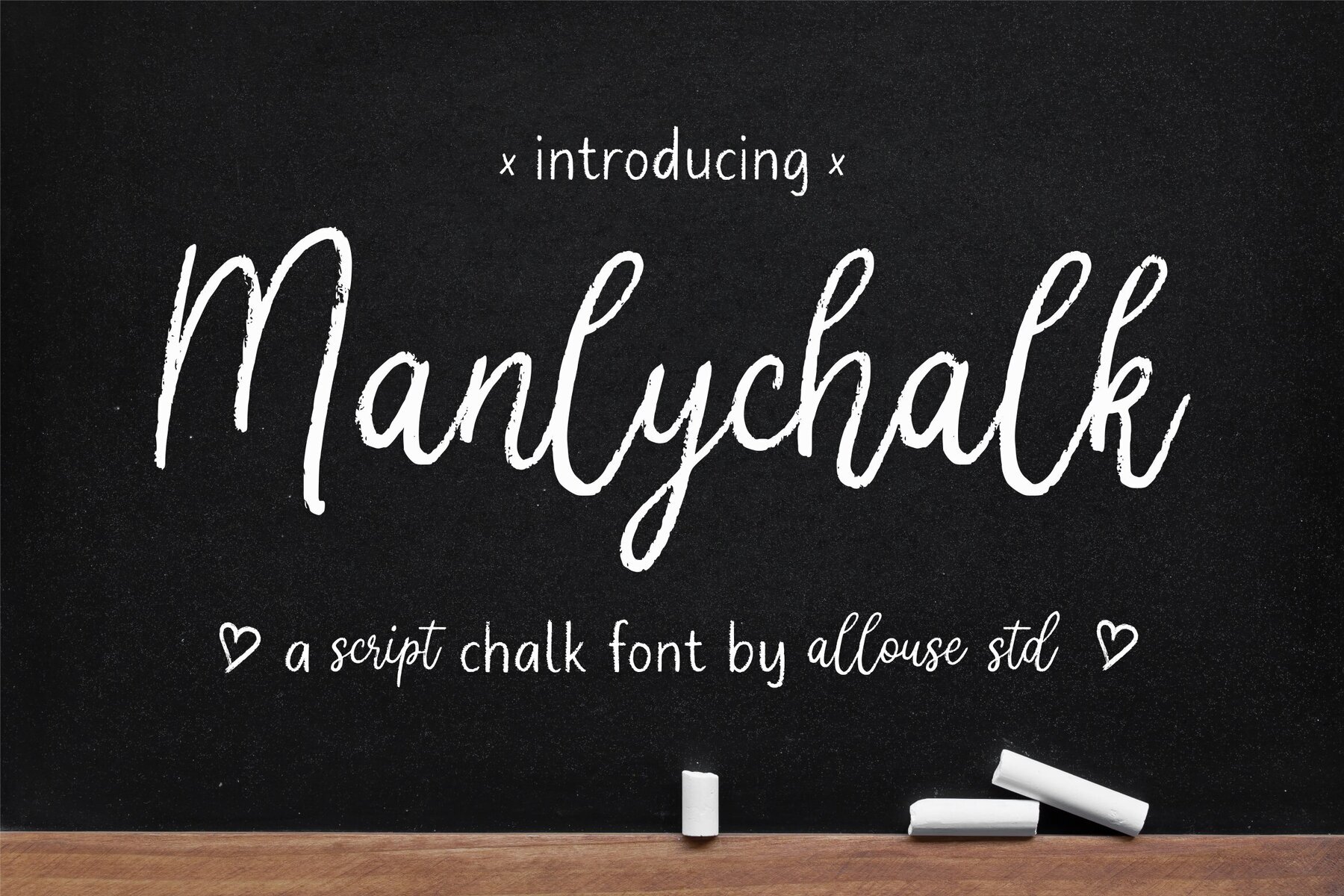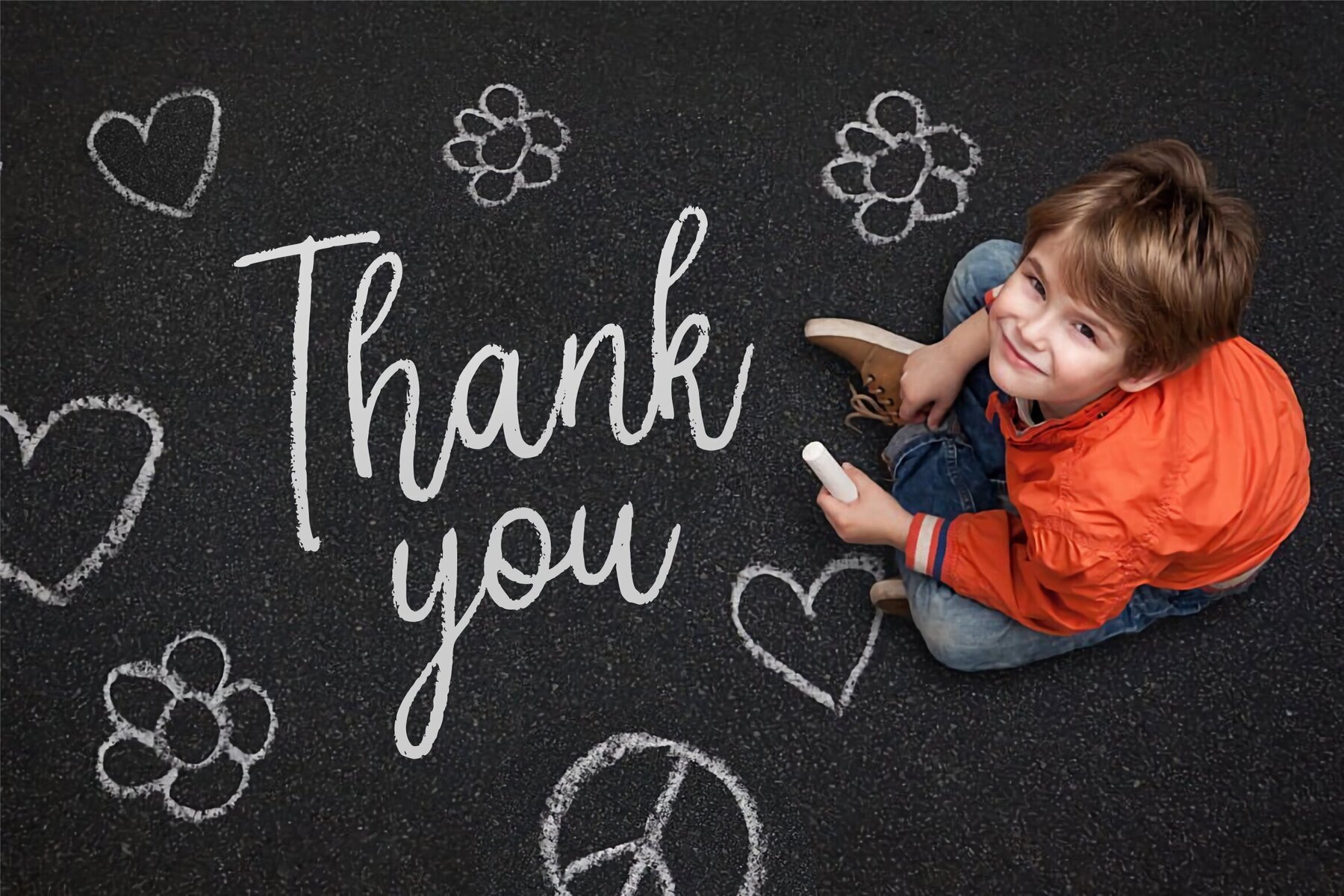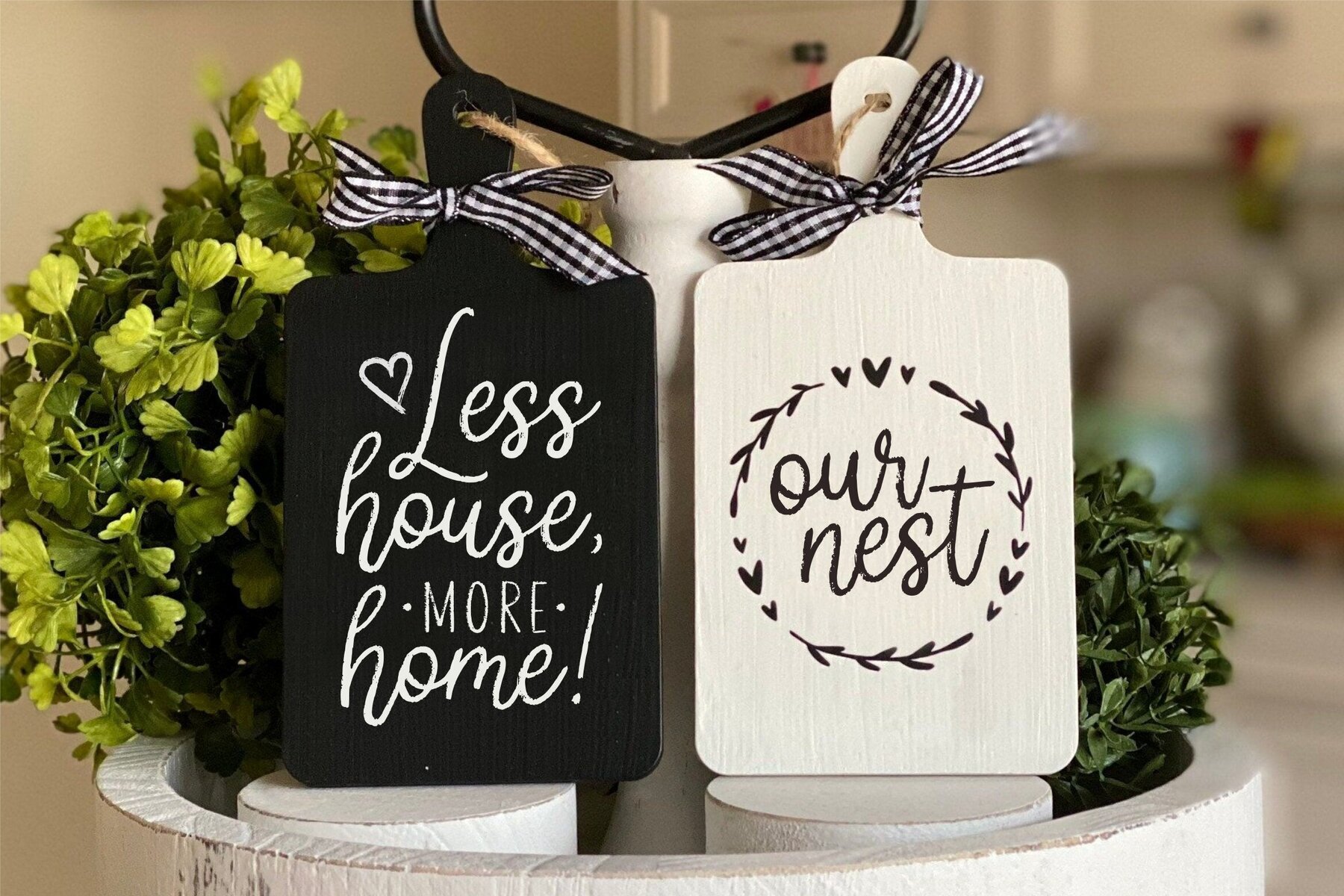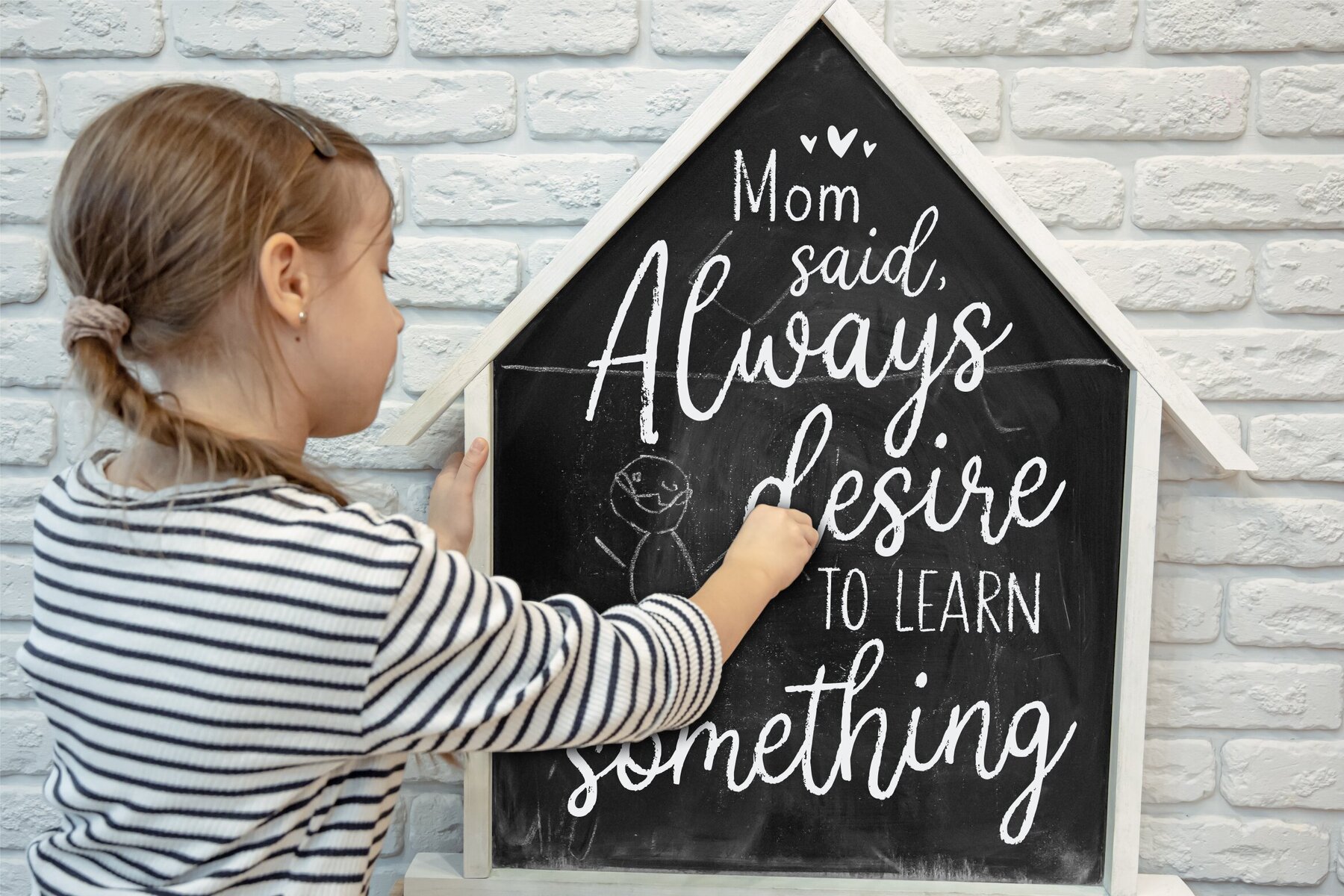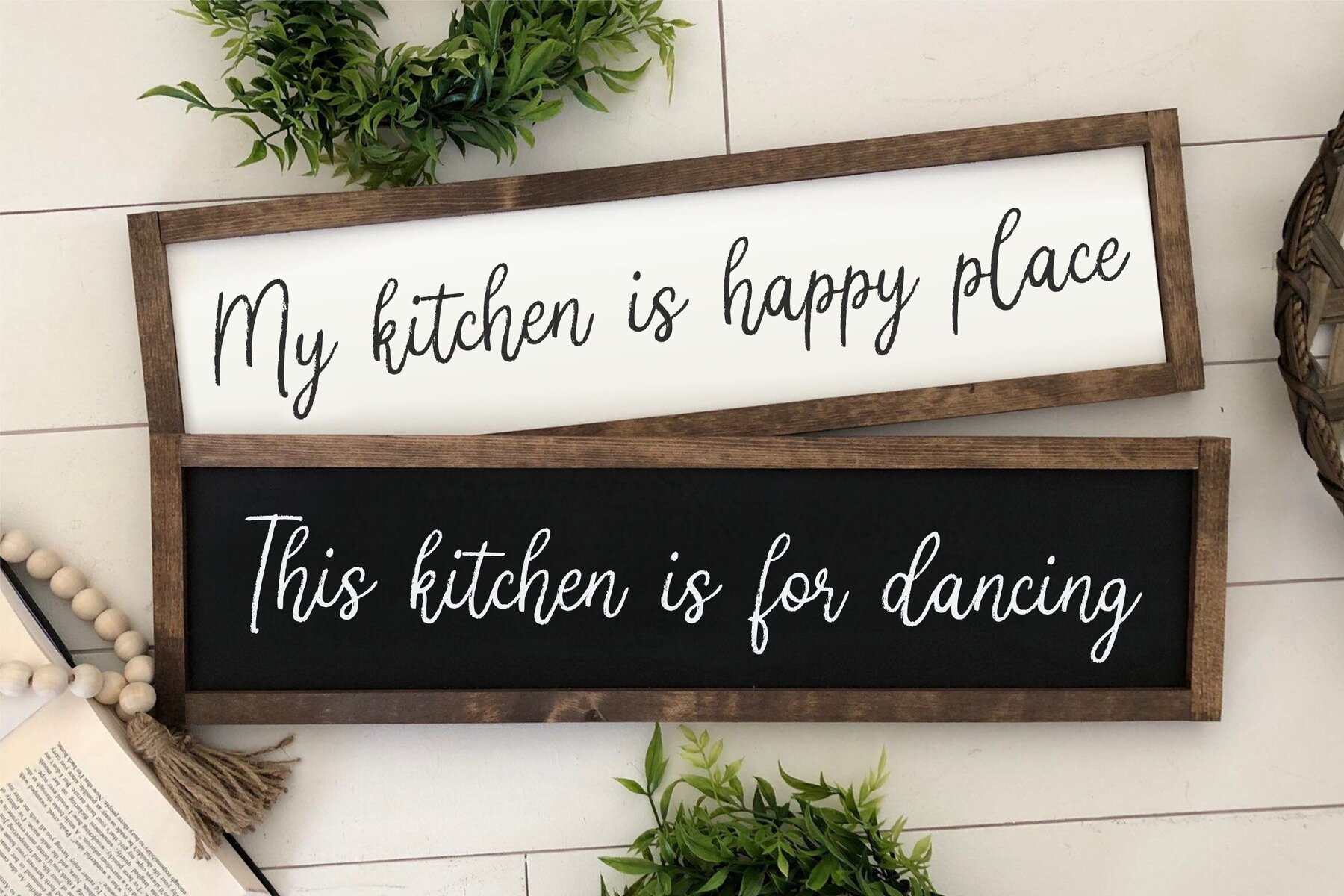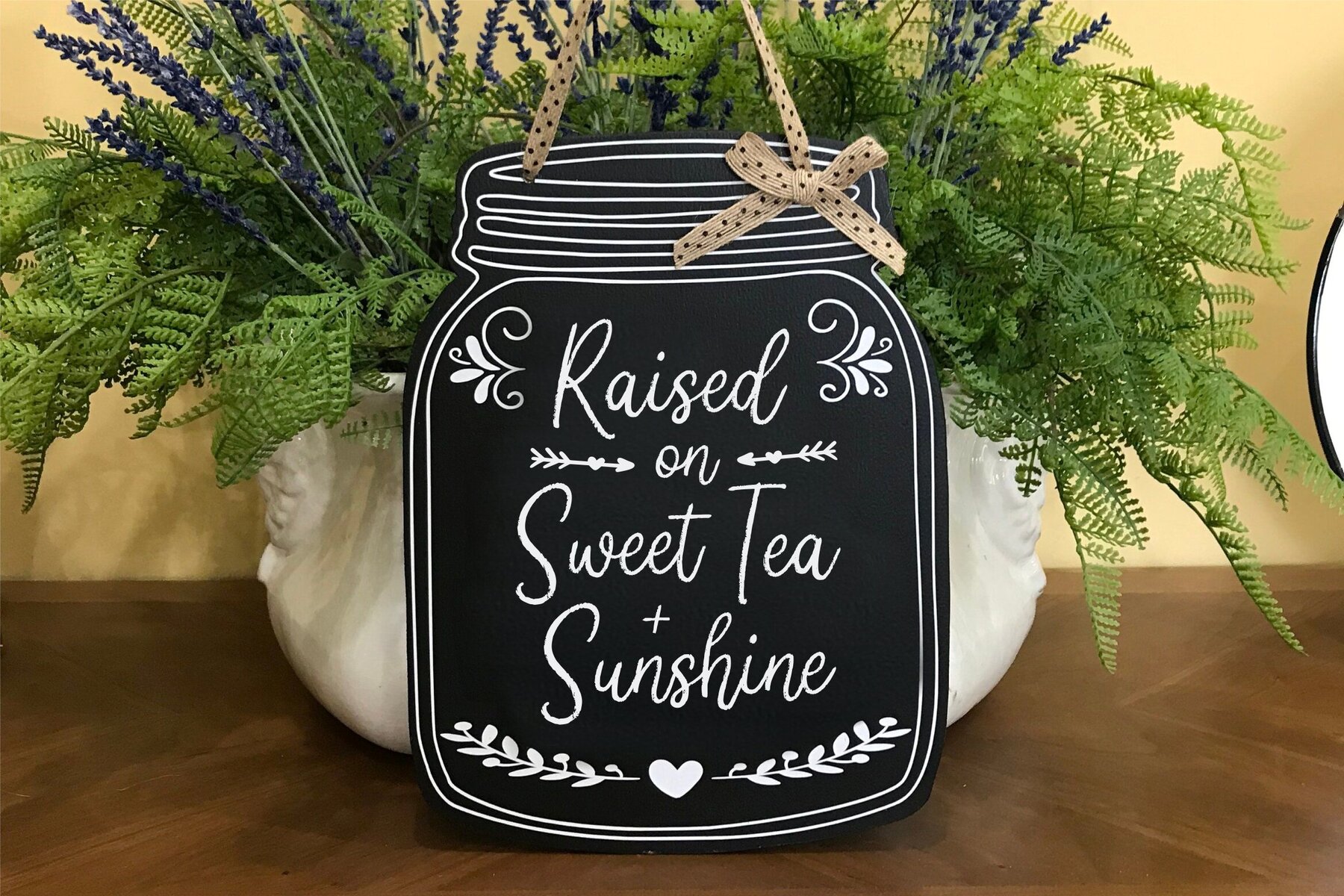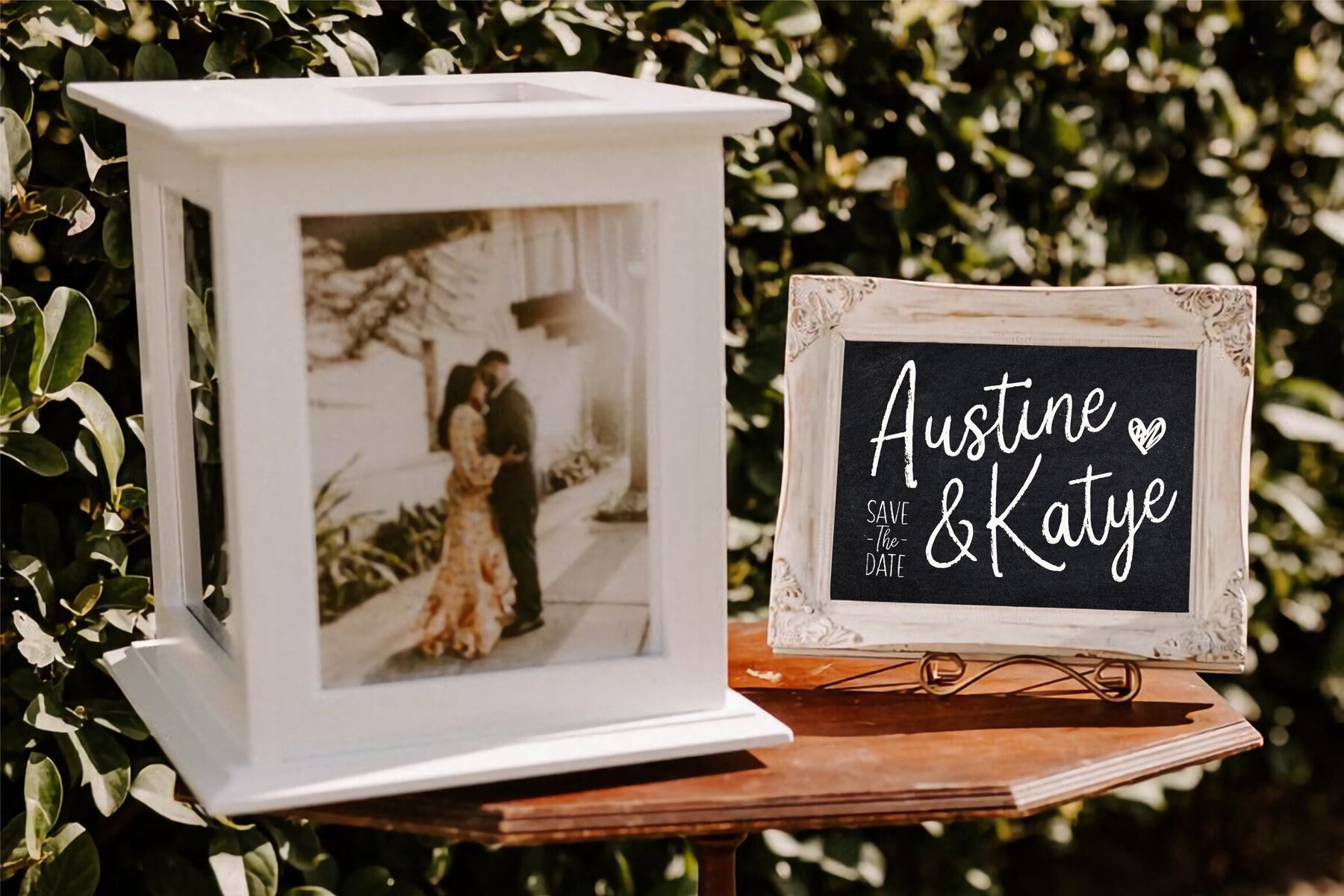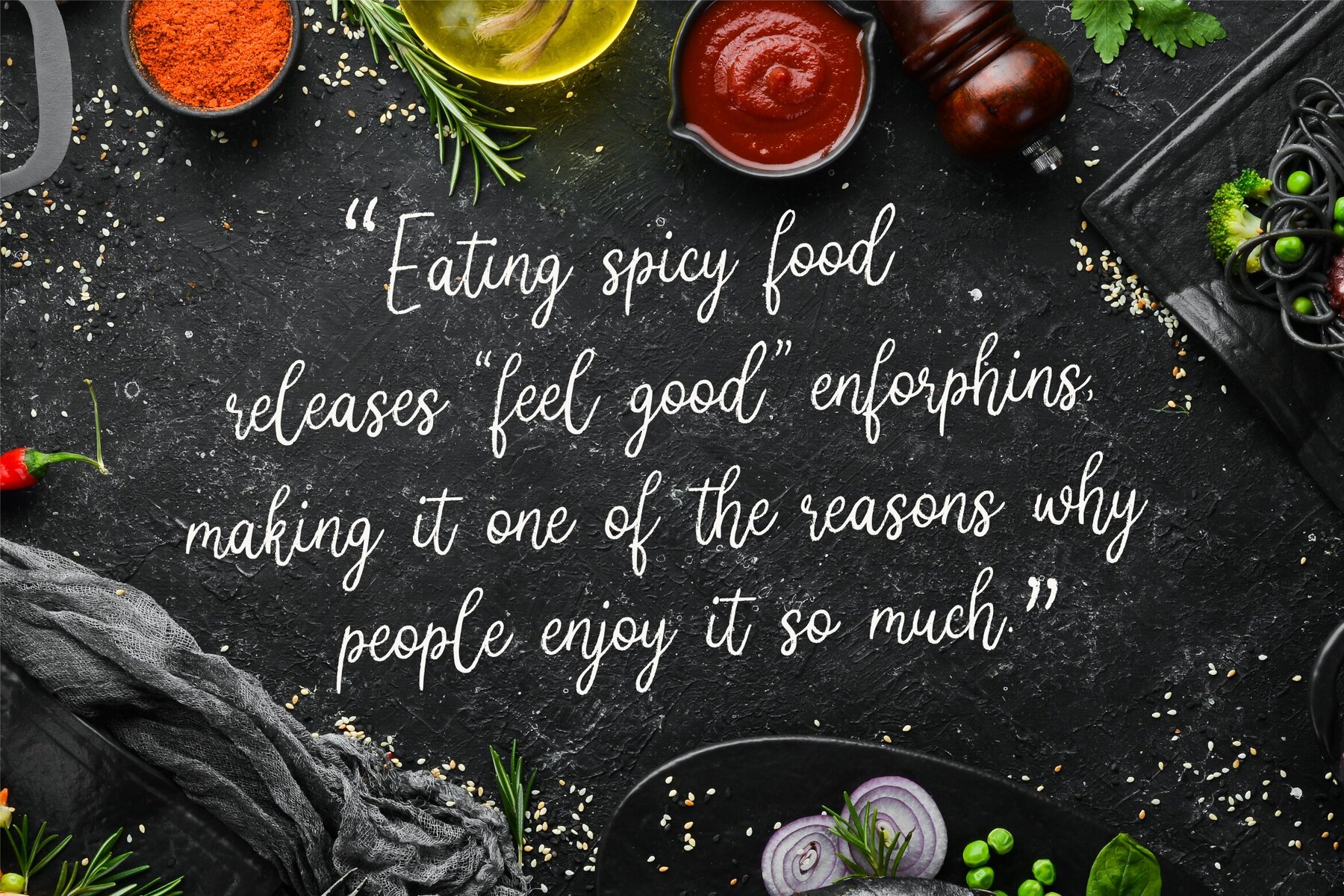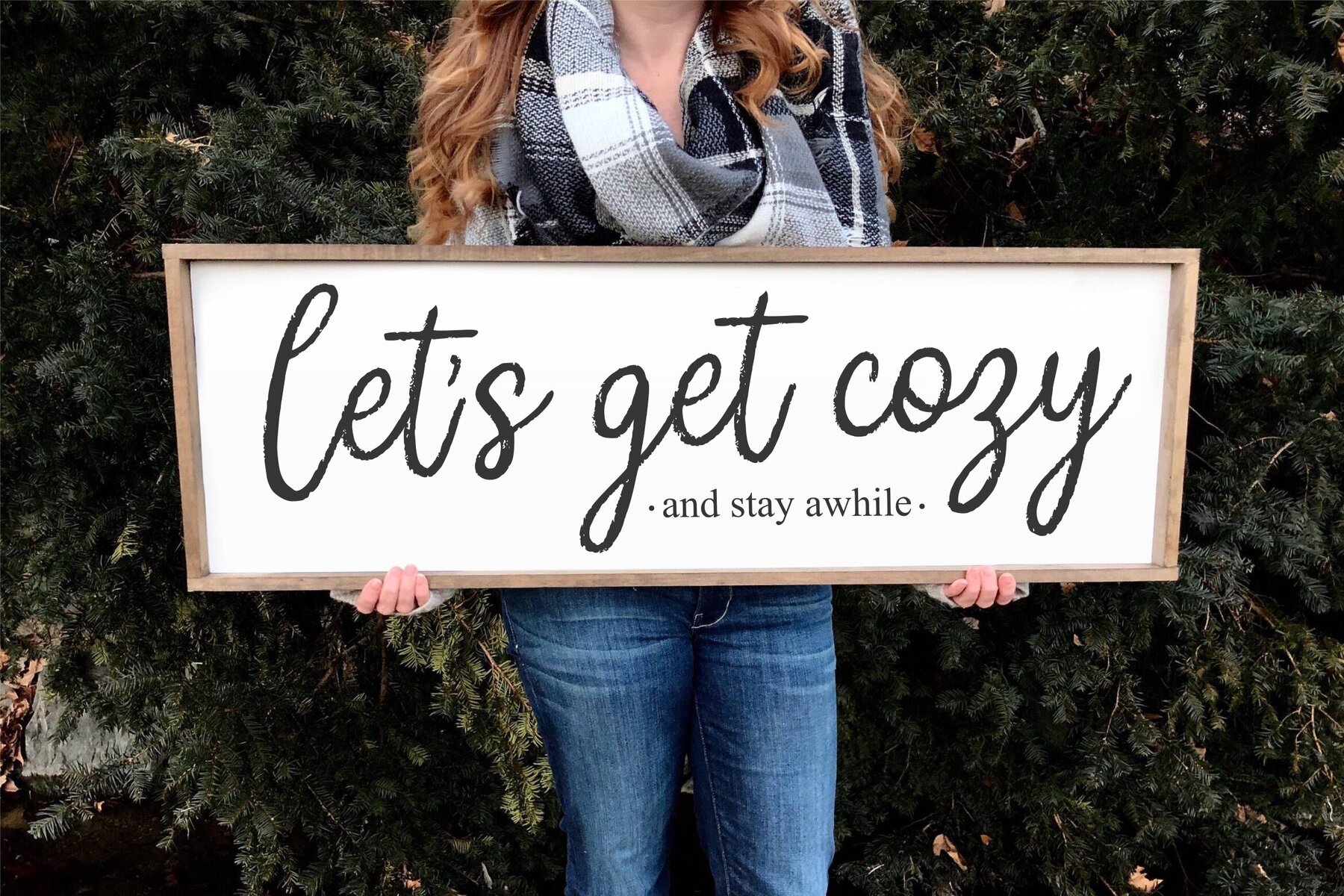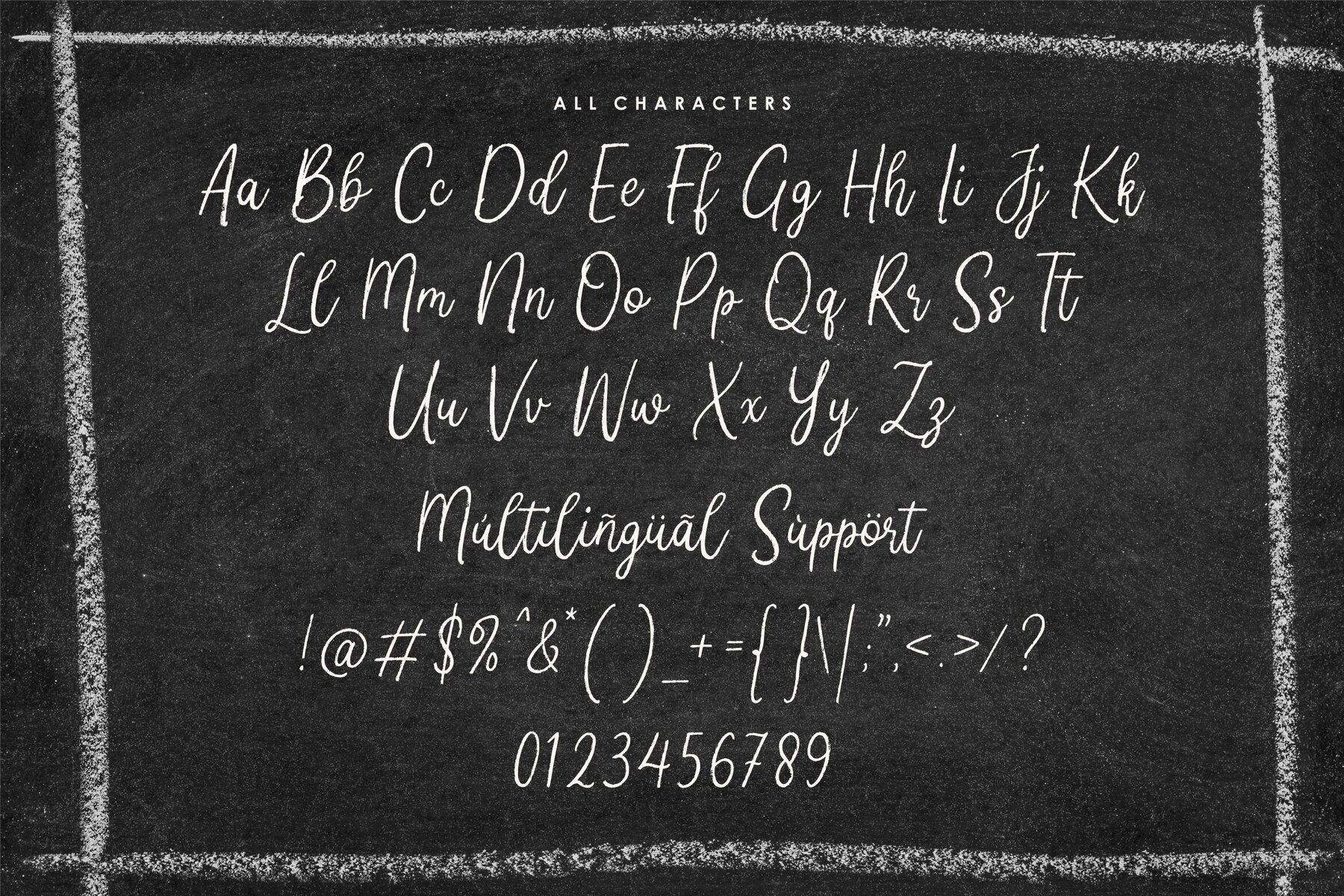
Manlychalk Font
Manlychalk Regular
Manlychalk, designed by Allouse.Studio, offers a perfect blend of casual charm and rustic appeal. This typeface is an excellent choice for product packaging, branding projects, magazine layouts, social media graphics, and wedding invitations. Whether you're enhancing a brand message or setting the tone for an editorial, Manlychalk provides a charming foundation for your creative expressions.Manlychalk: Versatile Chalk-Inspired Typeface